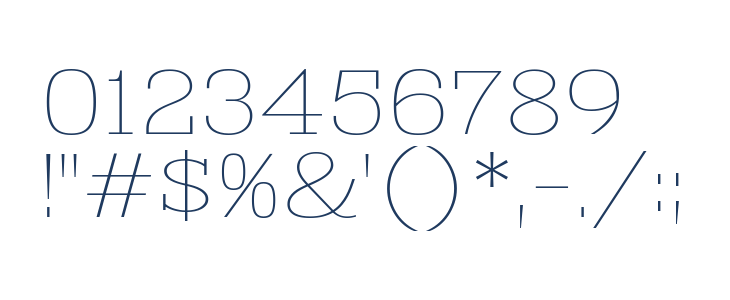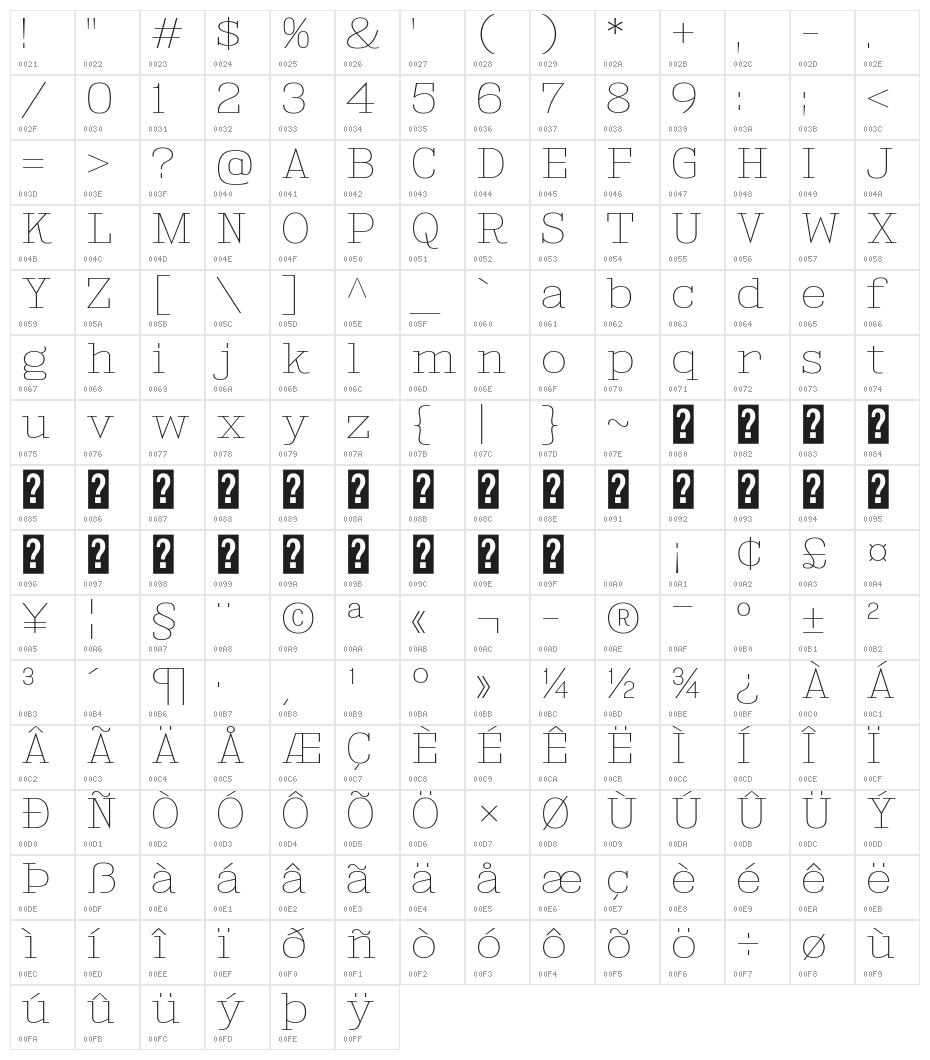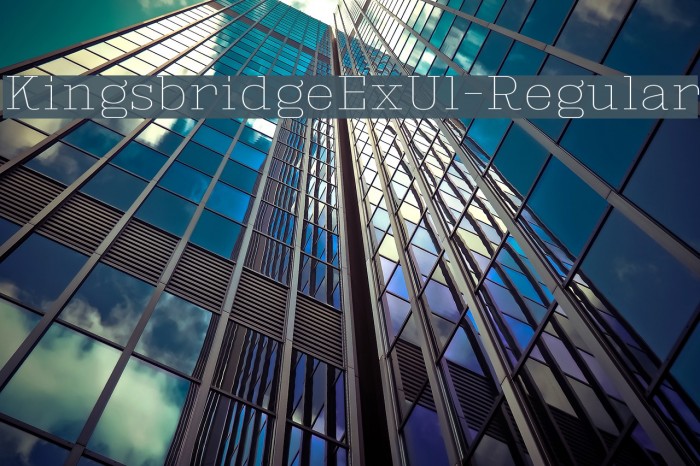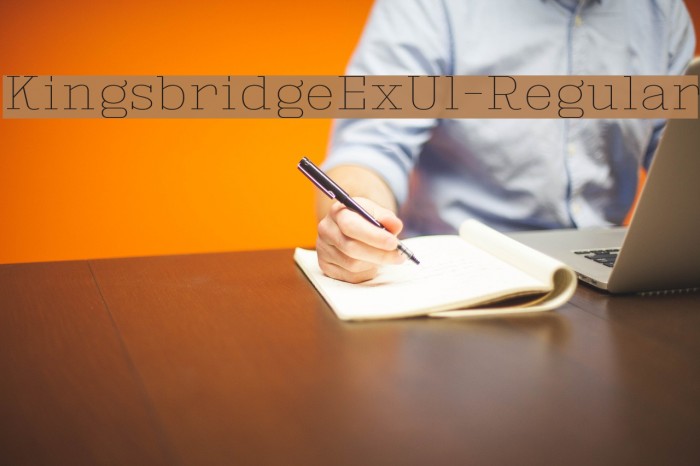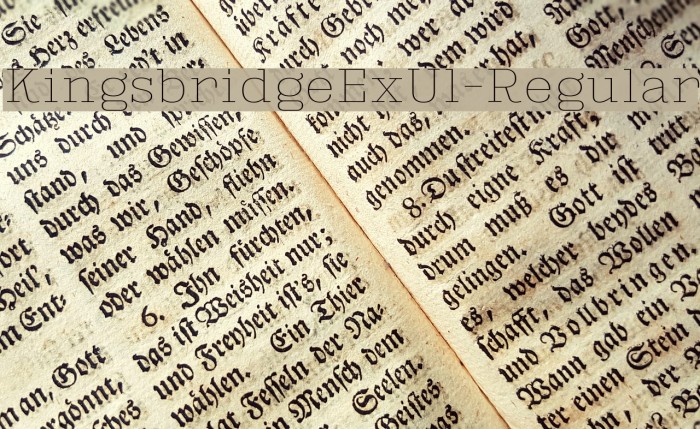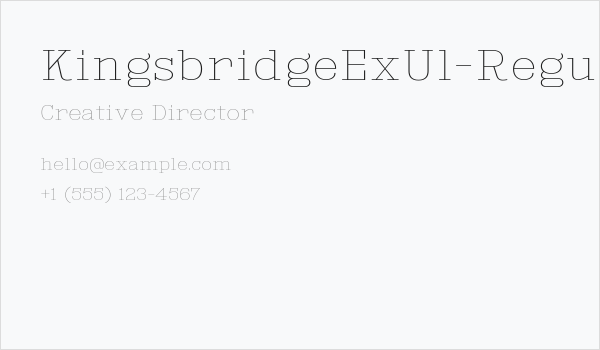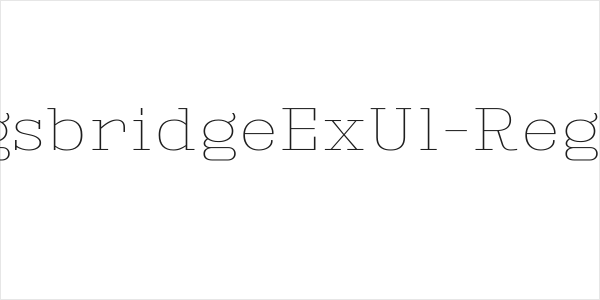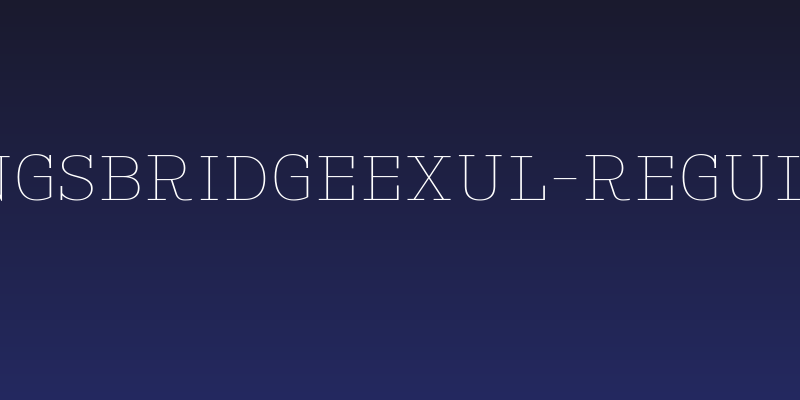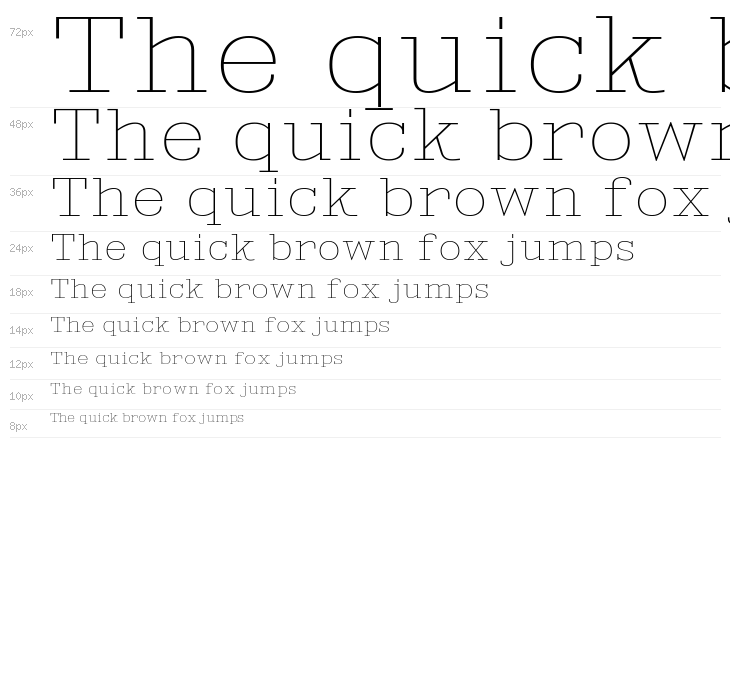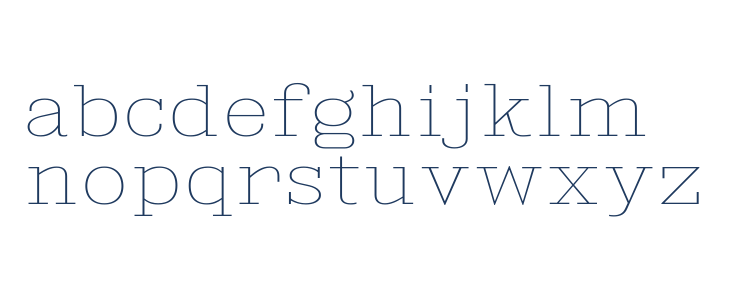
KingsbridgeExUl-Regular Font
KingsbridgeExUl-Regular Description
This font features a clean and modern design with a geometric structure. The characters are evenly spaced, providing a balanced and harmonious appearance. The uppercase letters are tall and elegant, while the lowercase letters maintain a consistent style that complements the overall aesthetic. The numerals are clear and easy to read, making them suitable for various applications. The special characters are thoughtfully designed, adding to the font's versatility. The thin strokes and minimal contrast give it a sleek and contemporary look, ideal for projects that require a sophisticated touch.